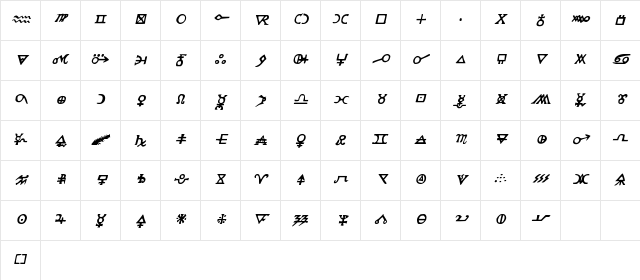
Hermetic Spellbook Italic Italic Free Font
Hermetic Spellbook Italic Italic
Design Context for Hermetic Spellbook Italic
Hermetic Spellbook Italic is a composed and adaptable typeface that performs quietly and consistently across a wide range of design contexts. The slanted form adds forward momentum and visual energy.